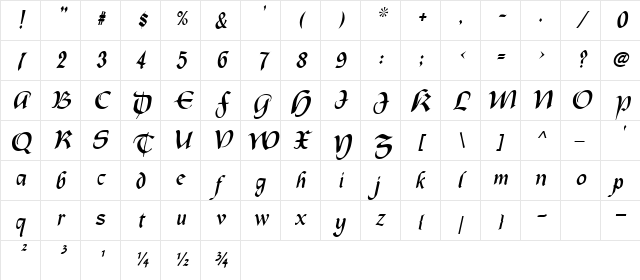
Complete OldCountry Italic glyph index. Displaying only characters natively supported by OldCountry Italic font.
OldCountry is a composed and adaptable typeface that performs quietly and consistently across a wide range of design contexts. The slanted form adds forward momentum and visual energy.
Pro Tip: Use OldCountry for emphasis, pull quotes, and subheadings where its slanted energy can add rhythm to the layout.